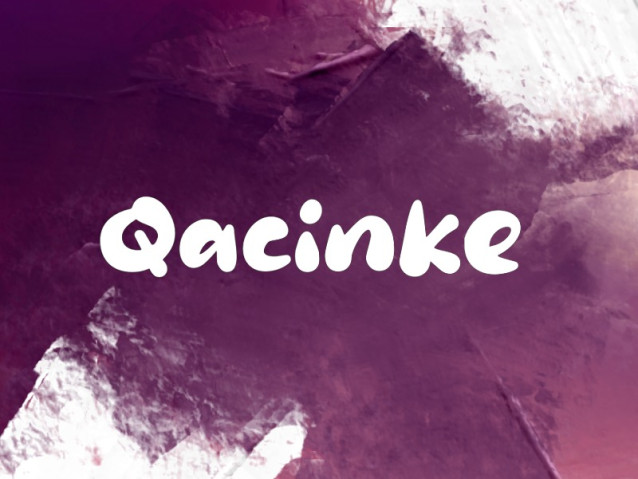
Qacinke Font
Qacinke Font is a playful and modern display typeface designed to bring warmth and personality to your projects. With its soft, rounded shapes and bold presence